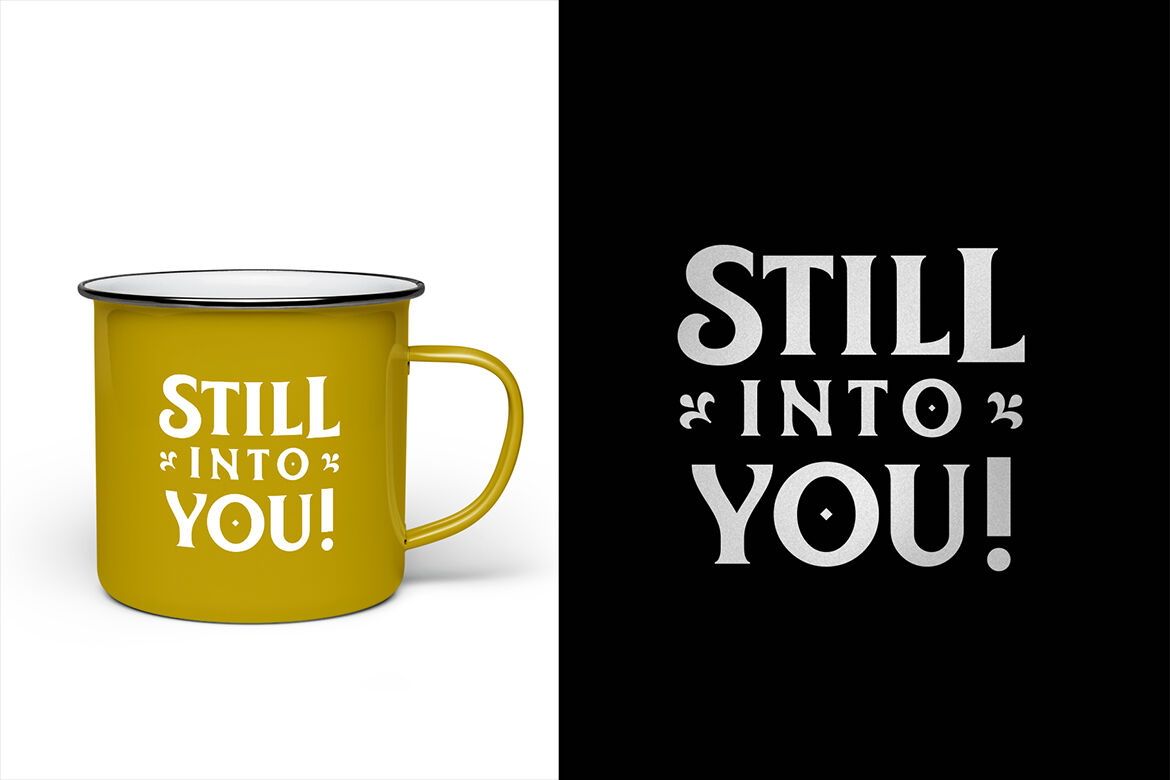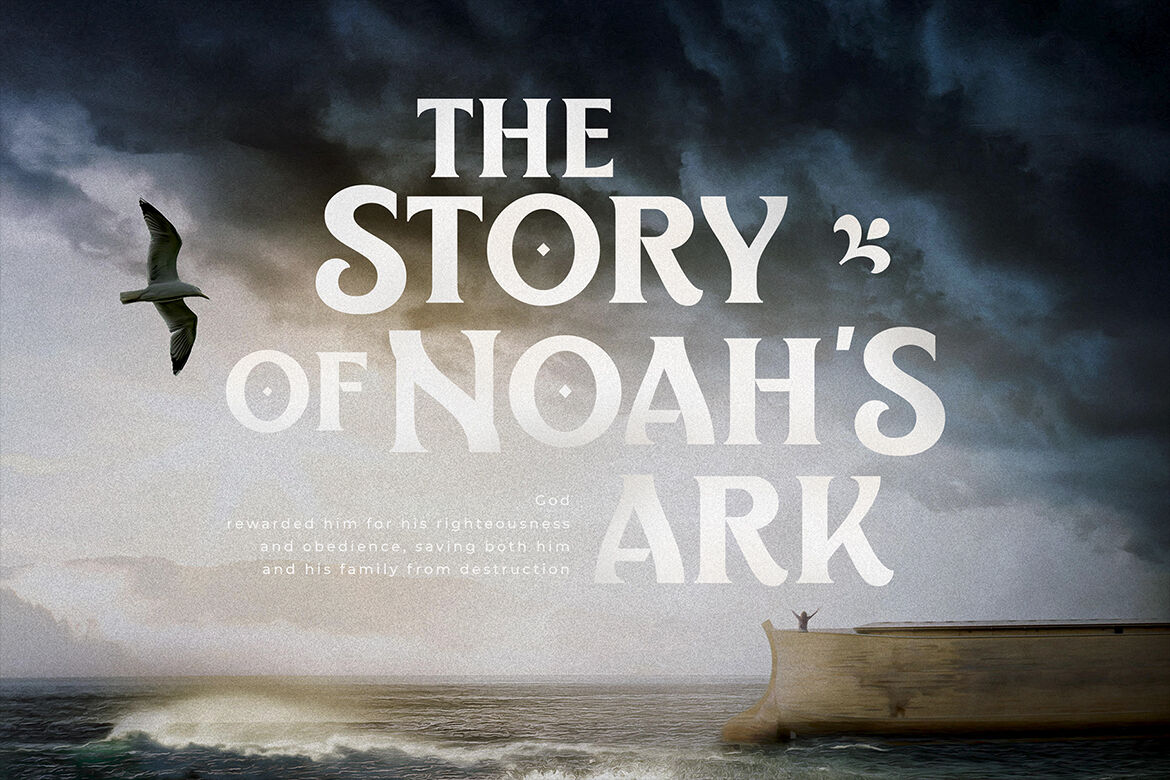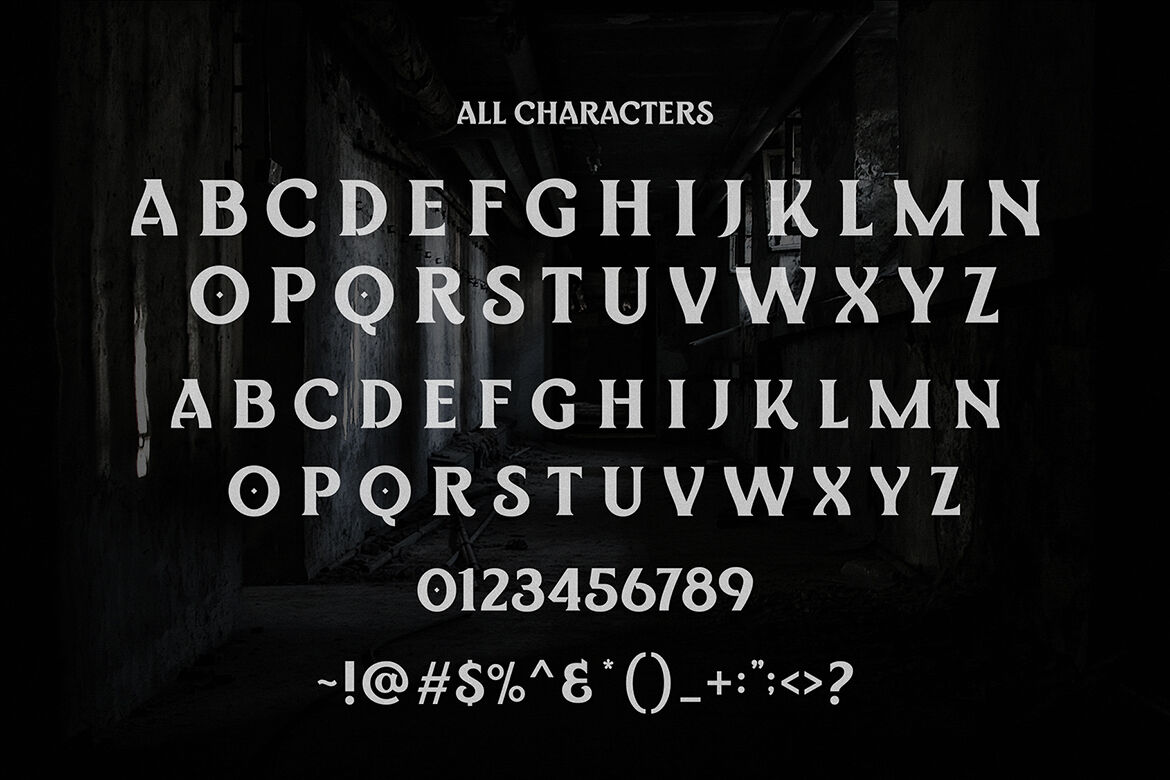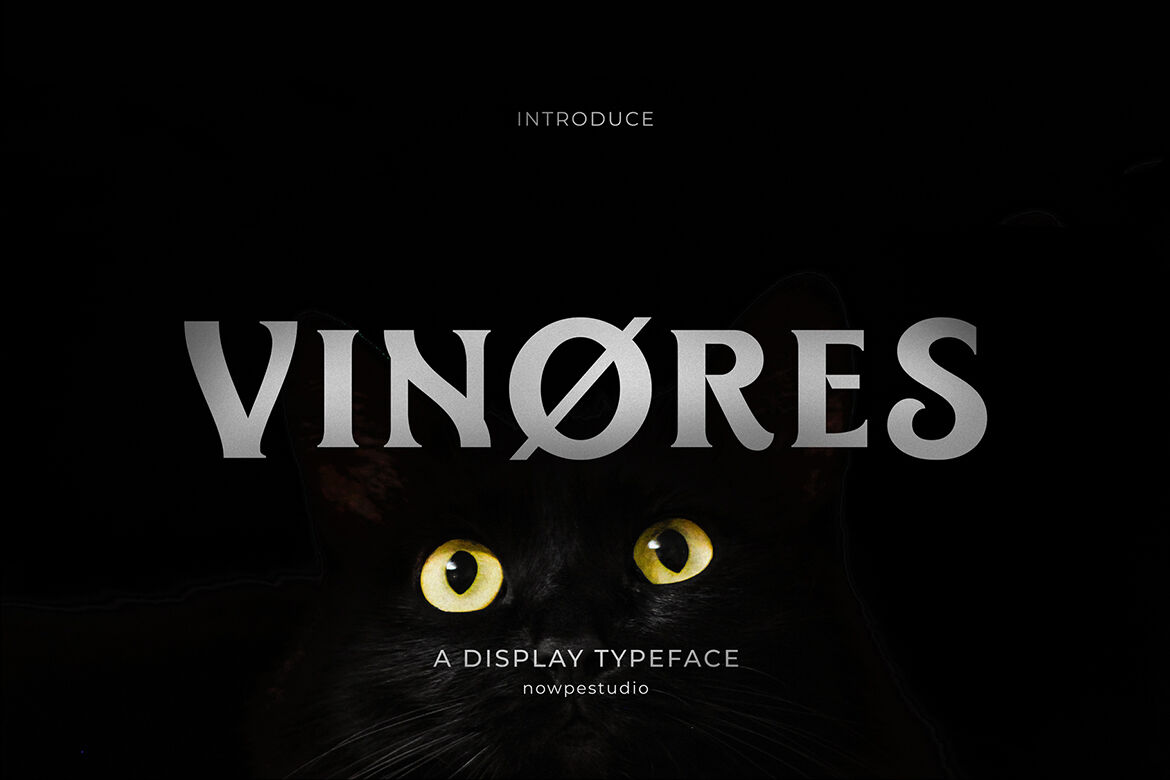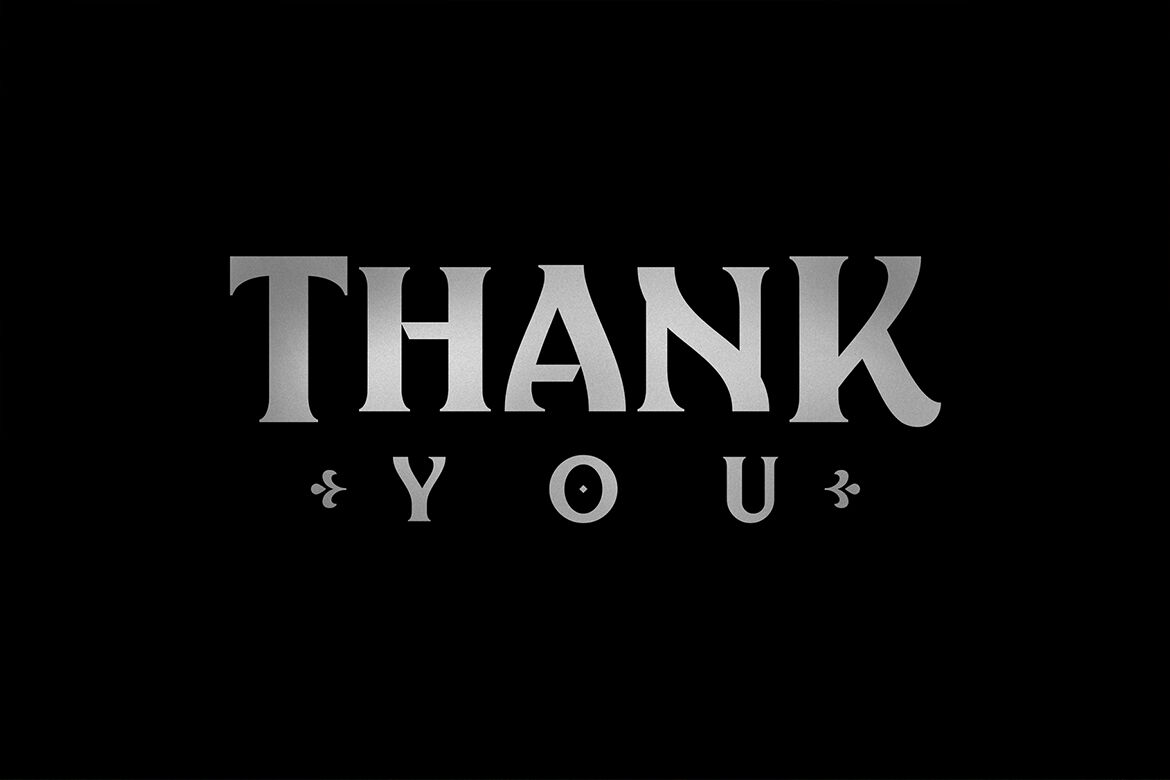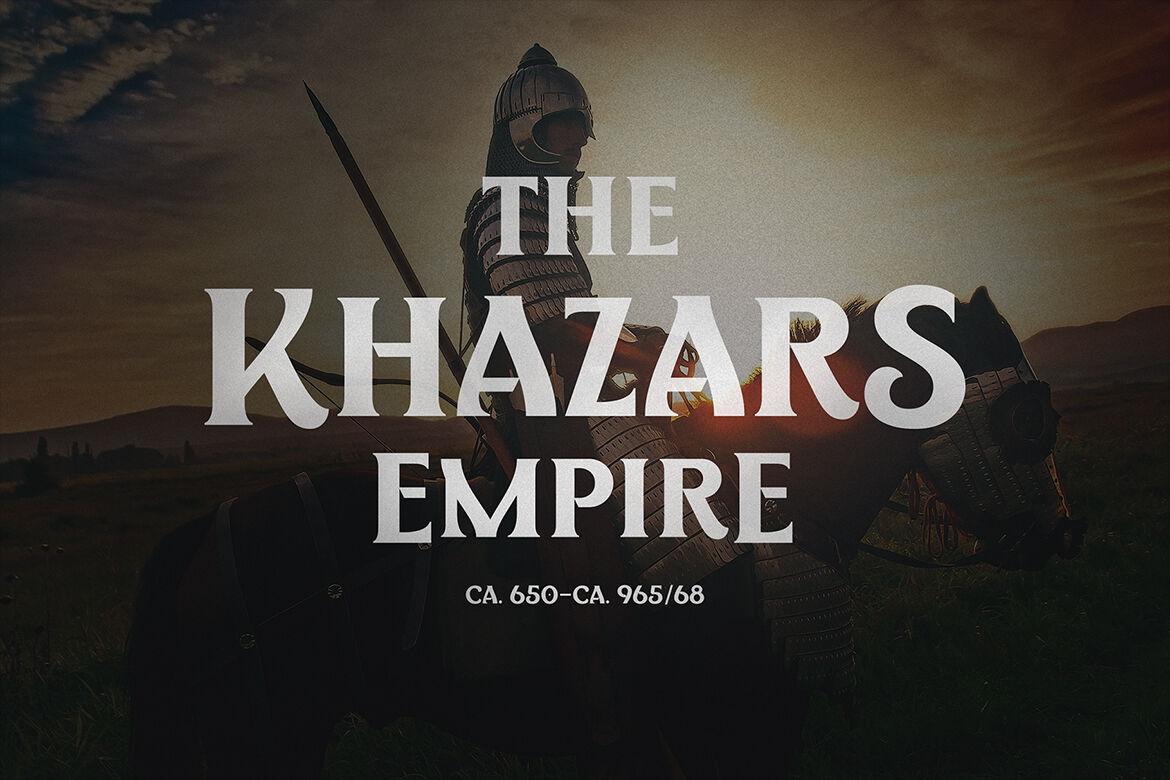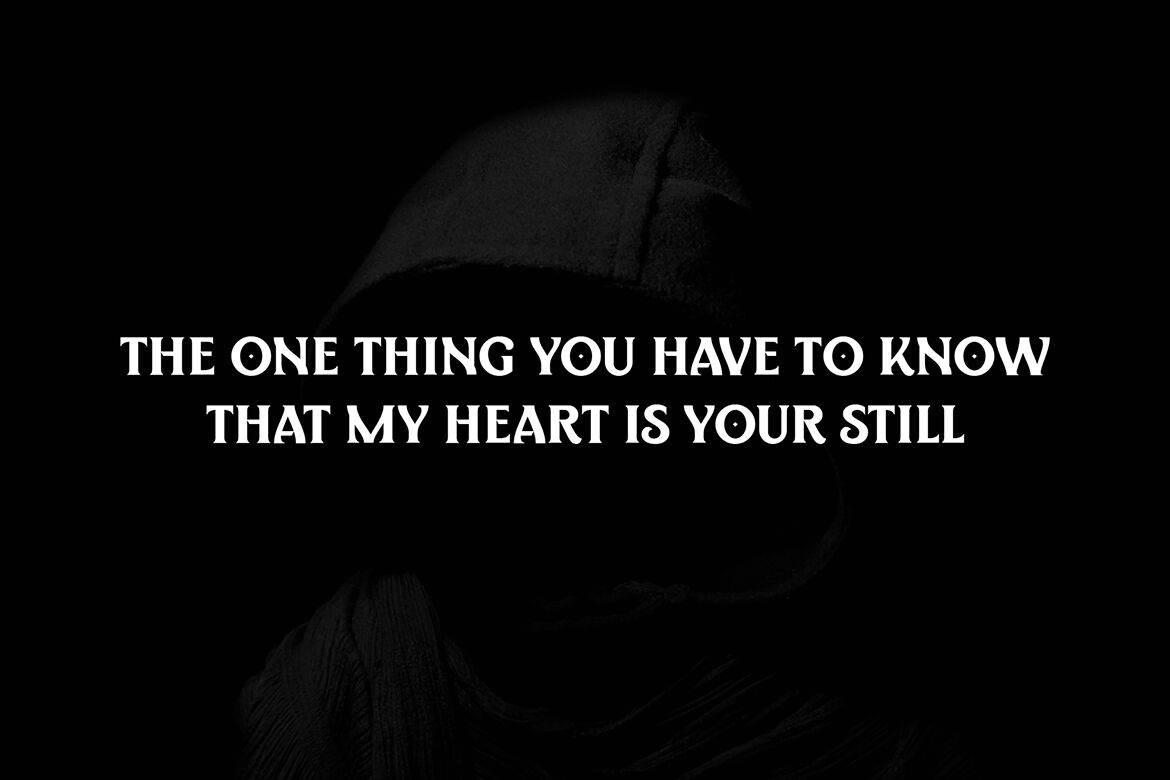
Vinores Typeface
Vinores Typeface | it's a display bold font with victorian style character it's make perfect to create Elegant Design, Modern, Vintage, Retro and more. So Choice any Glyphs and create the awesome typography and design use Files : - /> - How to access alternate glyphs : You need a program that supports Opentype Features such as Adobe Illustrator CS, Photoshop CS and Adobe Cheers*